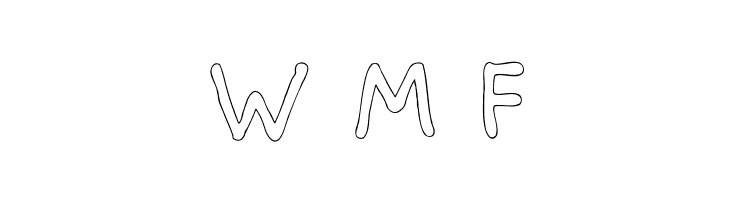
( Fonts by Darko Bogdanov )
A playful, bold outline font with a whimsical and engaging style.
( Fonts by Darko Bogdanov )
A modern italic font with a gradient line effect, offering a dynamic and stylish appearance.
( Fonts by Darko Bogdanov )
A playful, hand-drawn outline font with a casual and artistic style.
( Fonts by Darko Bogdanov )
An outlined, italic font with a modern and dynamic style.
( Fonts by Darko Bogdanov )
A bold, italicized outline font with playful, structured characters.
( Fonts by Darko Bogdanov )
A bold, italicized handwritten font with a playful and dynamic style.
A bold, aggressive font with sharp, angular lines and pointed edges.
An elegant, cursive handwritten font with smooth, connected strokes.
( Fonts by Mr. Typeman )